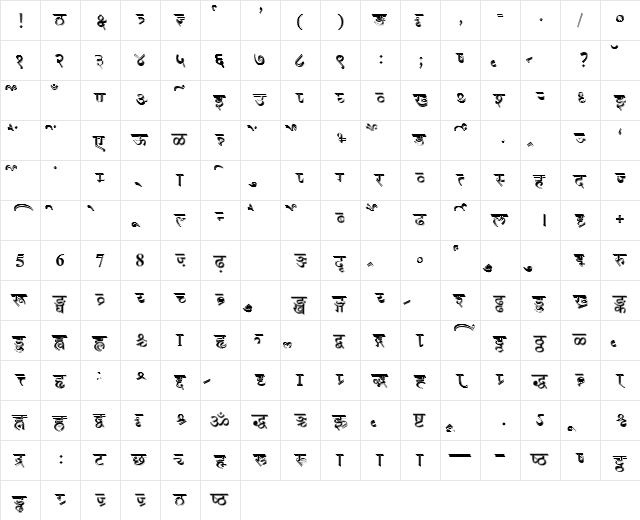
AkrutiDevBrahma Outline Free Font
AkrutiDevBrahma Outline
Style: Outline
Complete AkrutiDevBrahma Outline glyph index. Displaying only characters natively supported by AkrutiDevBrahma Outline font.
Design Context for AkrutiDevBrahma
AkrutiDevBrahma is built around its visual character rather than neutral utility - its distinctive forms are designed to make an impression at display sizes.
Font Pairing: Pair with a clean neutral sans-serif for body copy to let AkrutiDevBrahma's character lead without overwhelming the composition.
Pro Tip: Use AkrutiDevBrahma exclusively at display sizes - it was designed to be seen, not read at length. Let a neutral companion handle body copy.